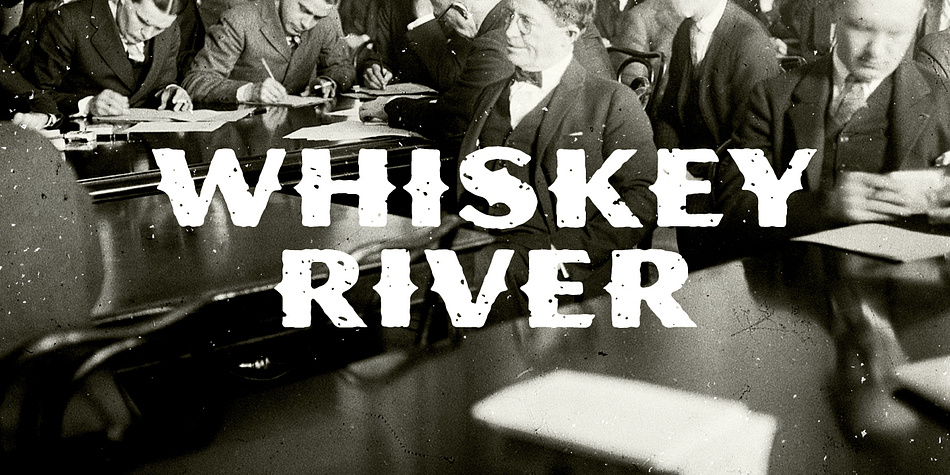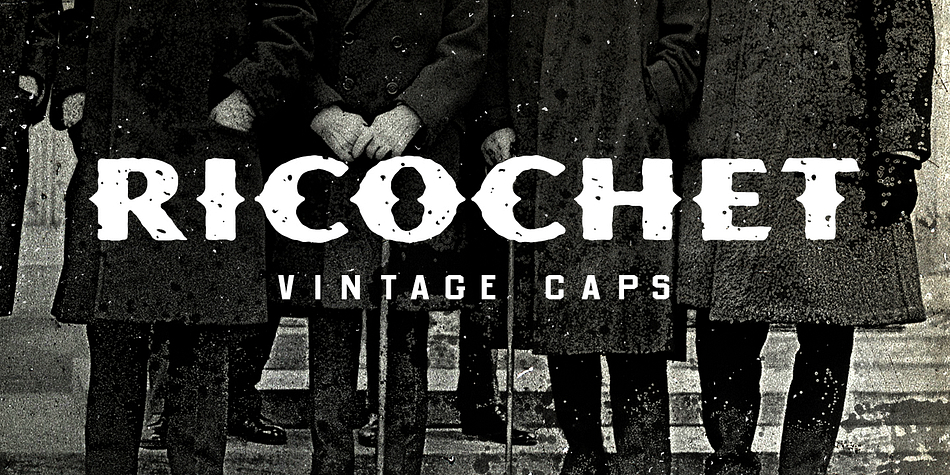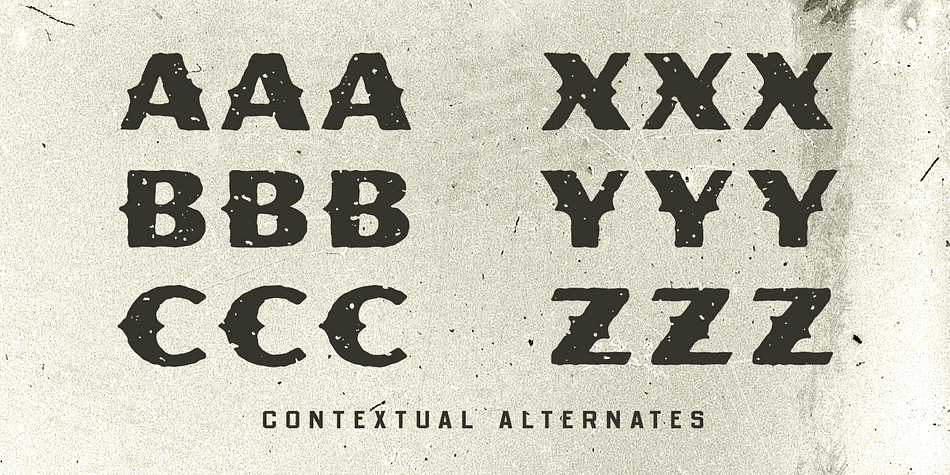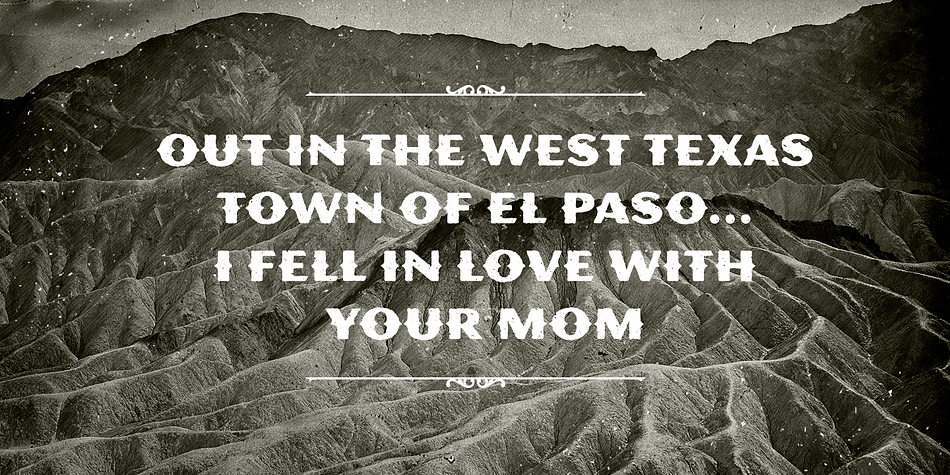
Designed by Ben Harman, Ricochet is a display sans font published by Ben Harman Design.
Joe Carnegie lay sprawled out on the floor of Sanders’ Mercantile, a thin trail of blood trickling through the cracks of the worn floorboards. A hush filled the room, followed by a collective wince, as his clenched lungs gave one last gasp. A single spasm, then nothing. His clutched left hand slowly released a thin scrap of parchment, now stained with remorse. On it, a single word: RICOCHET.
Ricochet is a masculine, vintage all-caps font with a large range of punctuation, numerals, and multilingual support. Contextual alternates are available for the most common characters.